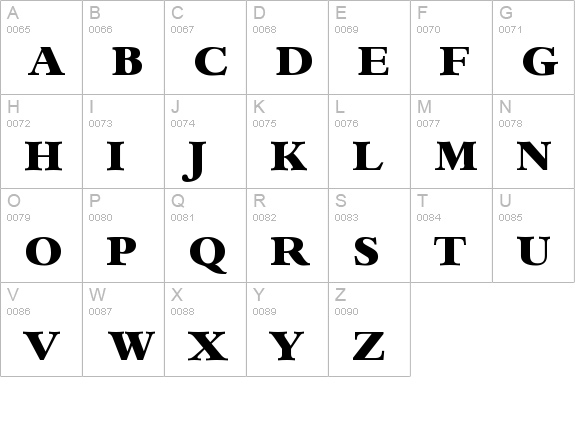
Bambi Bold Font Details
Bambi Bold is a strong, high-contrast variant in the Bambi typeface family \xE2\x80\x94 well suited to headlines, attention-grabbing titles, and strong calls-to-action.
Bambi Bold font is a sleek and modern typeface that exudes confidence and elegance. With its bold and eye-catching design, Bambi Bold is the perfect choice for making a statement in your designs. Whether you are creating a poster, logo, or branding materials, this font will surely stand out and leave a lasting impression. The best part? Bambi Bold font is completely free to download at FontsMarket.com! Now you can elevate your projects with this stunning font without breaking the bank. Don't miss out on this opportunity to add a touch of sophistication to your designs with Bambi Bold font. Download it today and let your creativity shine!